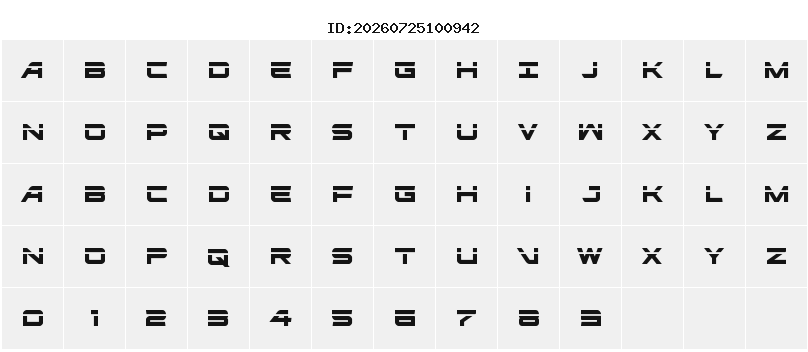
Ghost Clan Laser Preview
• Font Name: Ghost Clan Laser
• Full Font Name: Ghost Clan Laser Regular
About Ghost Clan Laser.ttf
Ghost Clan Laser.ttf is a modern, elegant sans-serif font designed for ultimate readability and visual harmony. Perfect for branding, headlines, web design, and print materials.